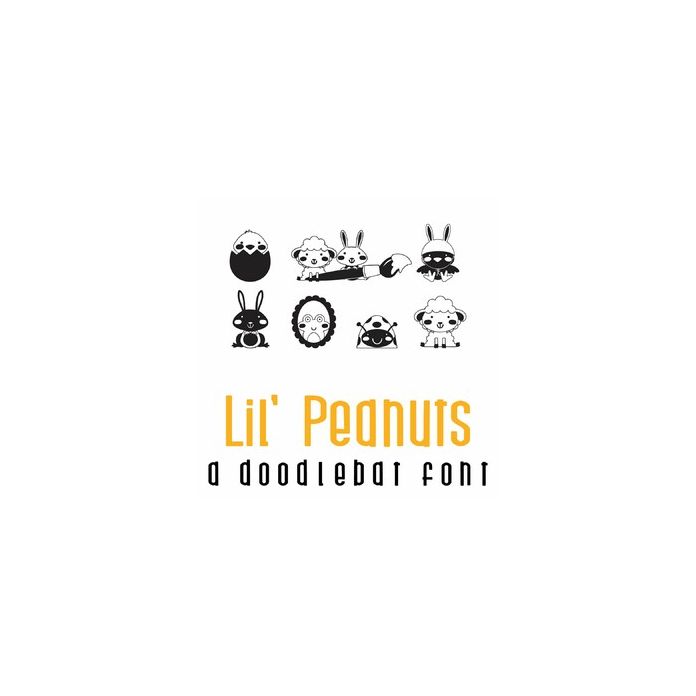
This adorable full-color doodlebat font features 26 adorable Kawaii style animals ready for Easter. Perfect for cards, crafts, gifts, decor, scrapbook pages, planner stickers, and more!